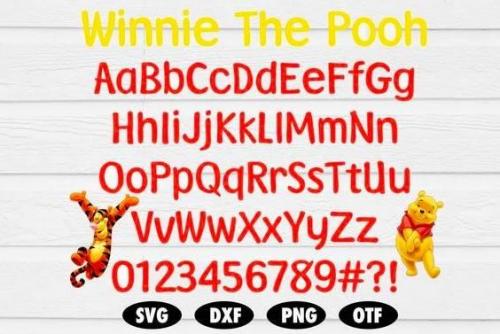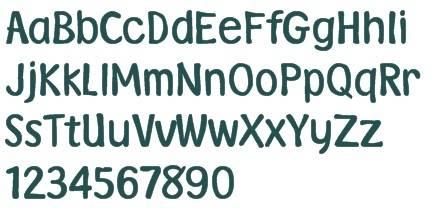
Winnie-the-Pooh, also called Pooh Bear and Pooh, is a fictional anthropomorphic teddy bear created by English author A. A. Milne and English illustrator E. H. Shepard.
Winnie the Pooh font is a classy Cartoon typeface. It features charming alternates and vintage style. Use this modern font to add that special luxury touch to your favorite design idea you can think of. Winnie the Pooh font includes a full set of great uppercase & lowercase characters, alternate characters, punctuation, and multilingual characters support.